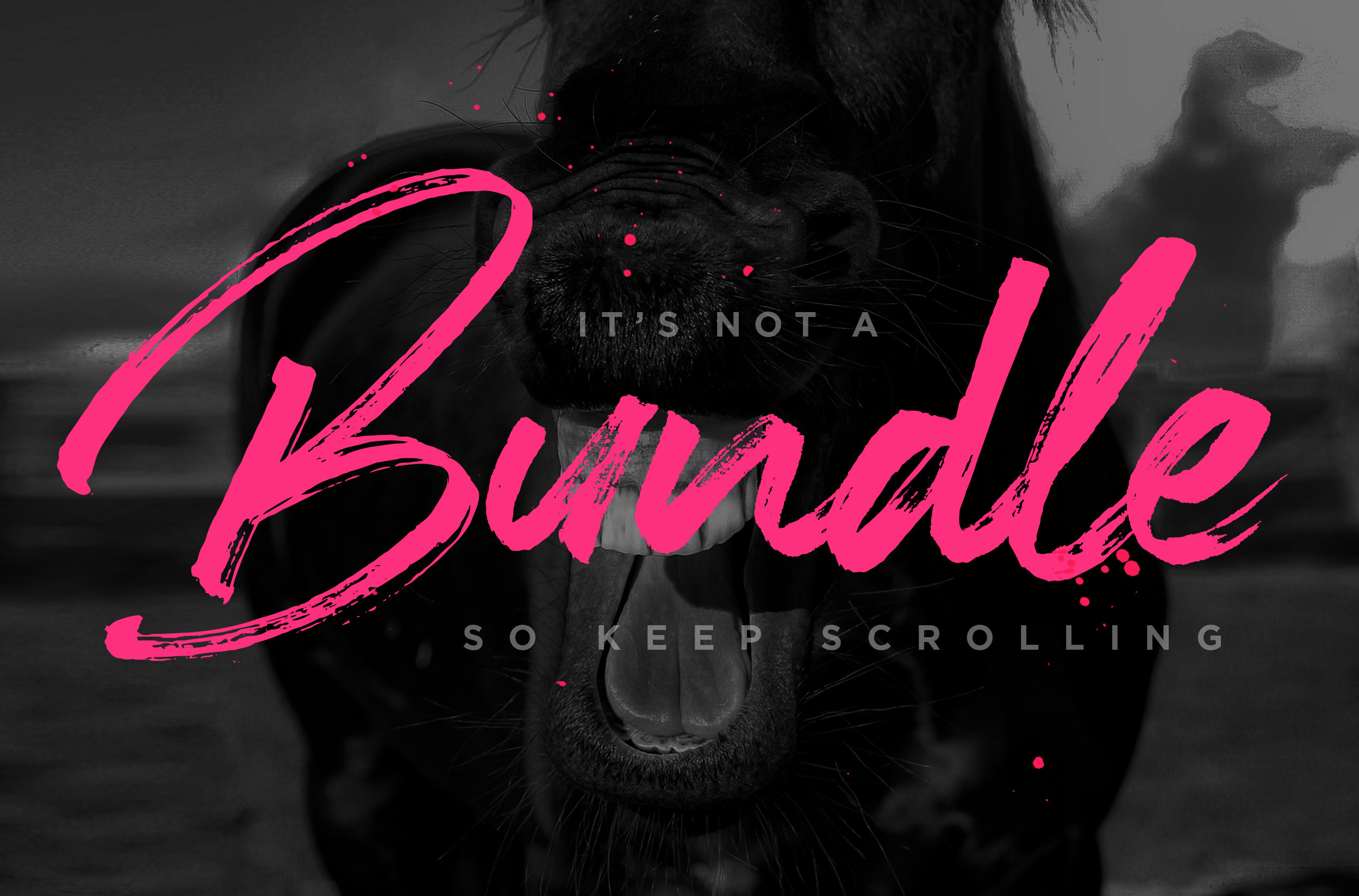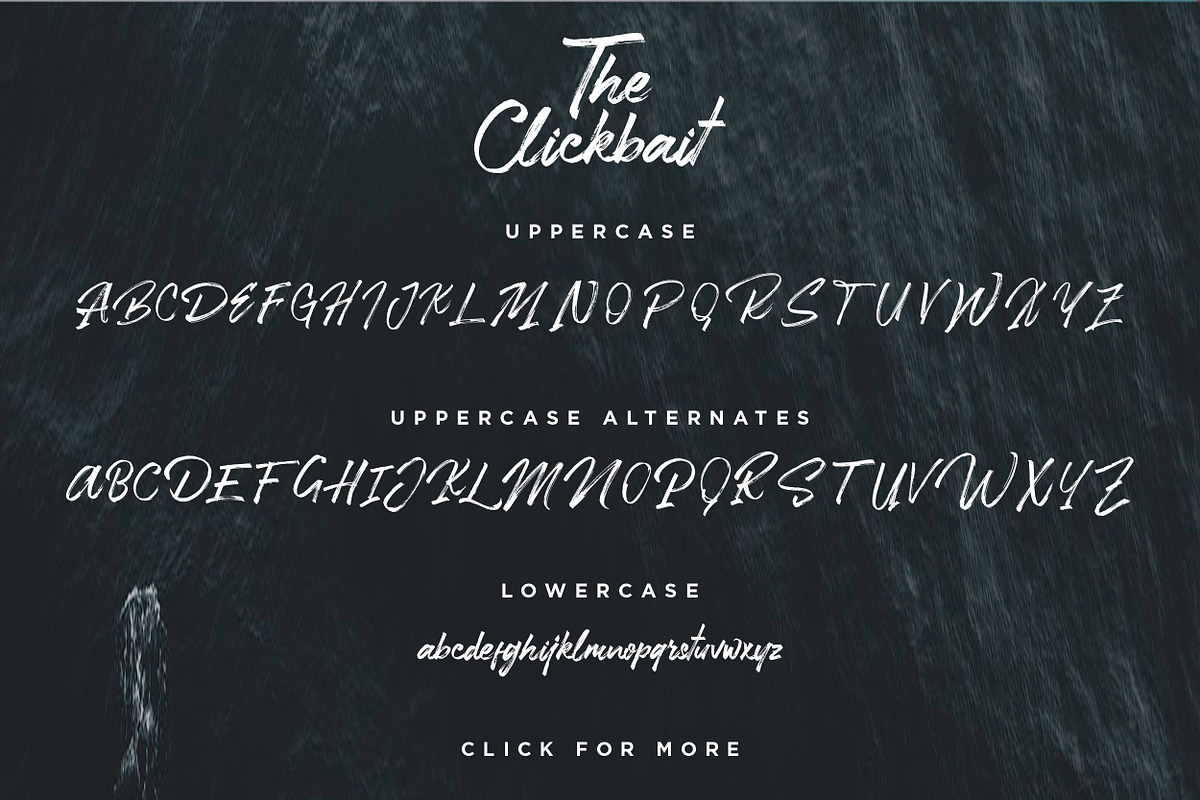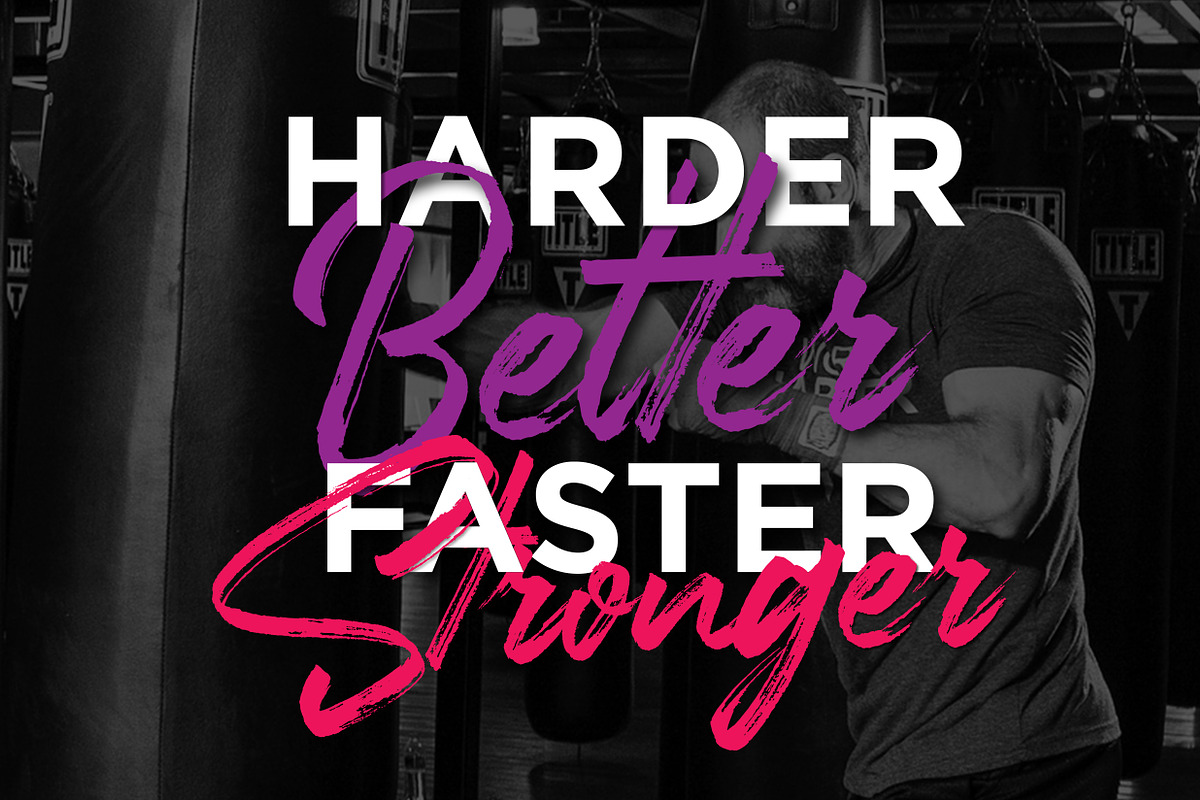
Clickbait - Logo Font
Please welcome, The Clickbait!
A calligraphy dry brush font that you'll never ignore. Implementation of almost-empty brush pen and super fast stroke to get those natural texture of hand lettering impression. Some tips : it kinda perfect for logo, branding, a punchline words in a poster, quote, and any kind of situation that need an 'in your face' word.
Comes up with Uppercase stylistic alternates, double-letters ligatures (to get the feel of real handwriting) and some international language support (check the image)